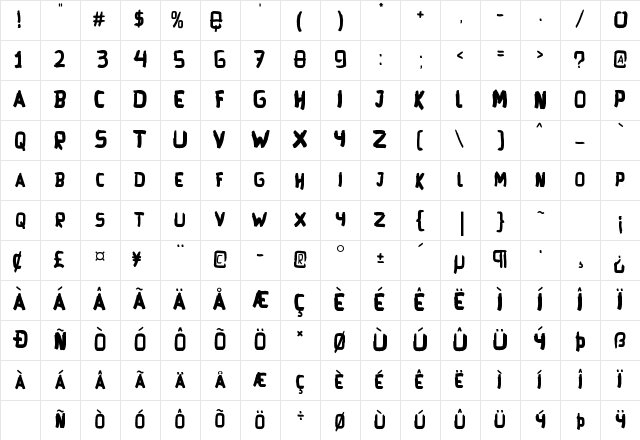
Explore Regular
Foundry: Sizimon
Designer: Faisal Tanjung
Year: 2016
Design Context for Explore
Explore is a composed and adaptable typeface that performs quietly and consistently across a wide range of design contexts.